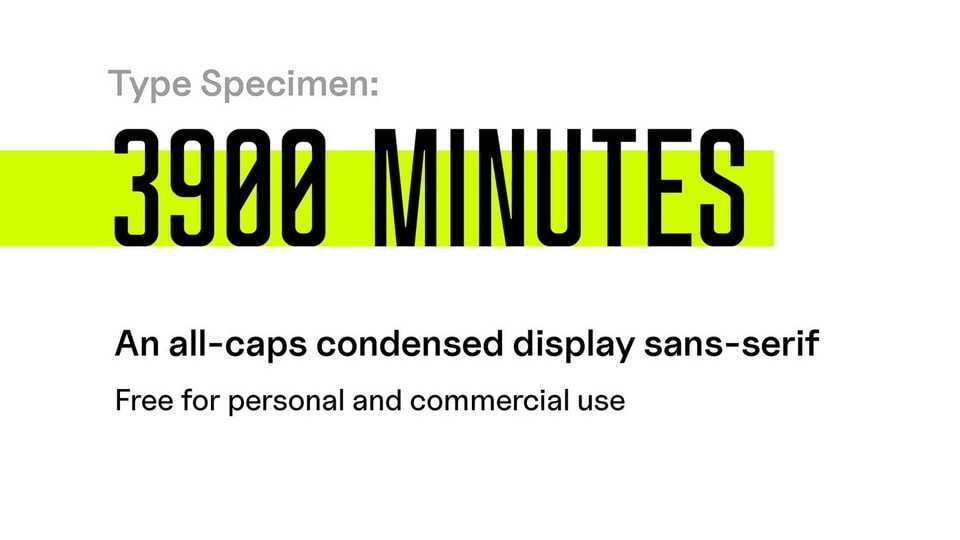
Download 3900 Minutes font, a display sans serif with a clean modern feel inspired by typefaces like Bebas Neue and Alternate Gothic. 3900 Minutes is a condensed typeface that able to fill a lot of space while still being legible enough in a variety of sizes.
Designer: Angelina Mateva